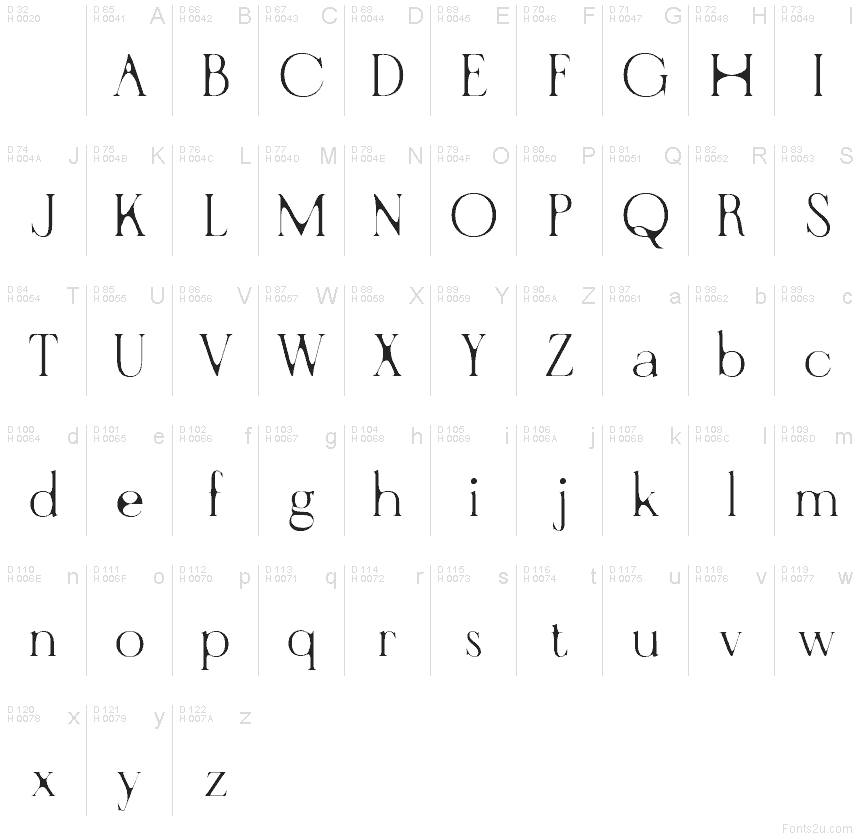
CS Rowena Drawn font by Craft Supply Co. has been drawn to fill your artsy cravings. It is a free handwritten font that combines a contemporary look with an artistic one for characters that will look like no others especially with their contrasting thickness and natural designs.
Use it in branding projects for funky logos, in packaging designs, ads and posters similar to the ones available above, notebook covers, invitations, greeting cards stationery projects with stamps and stickers, posters, product labels.